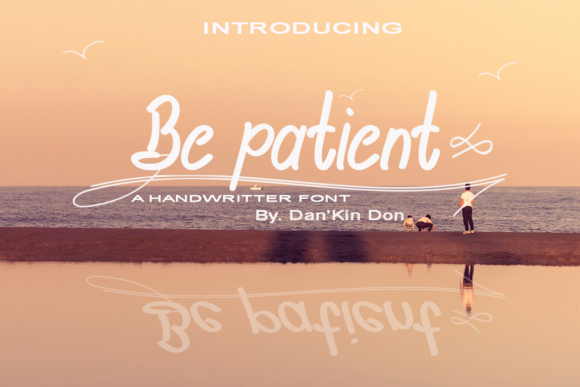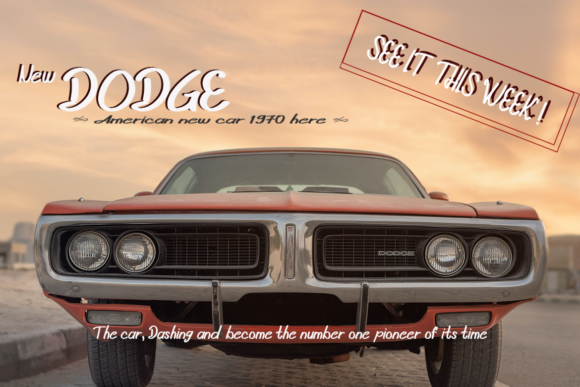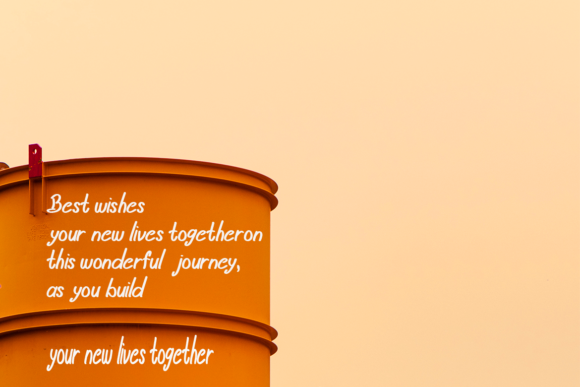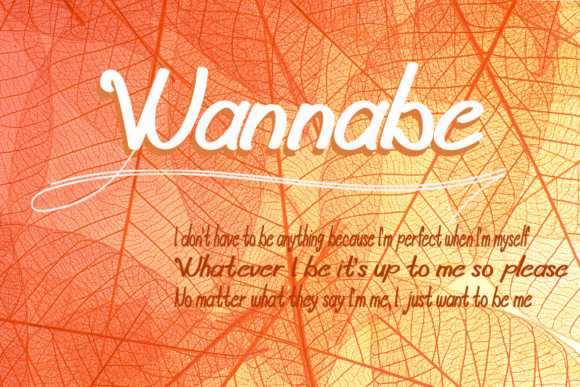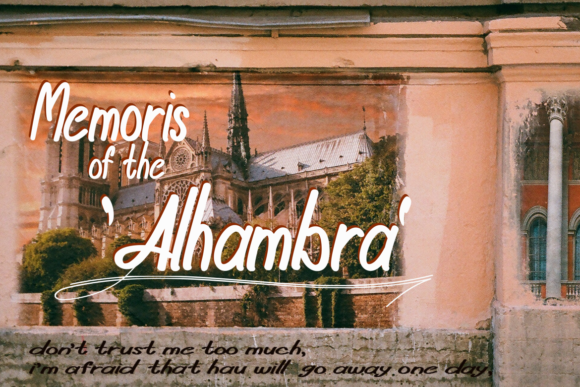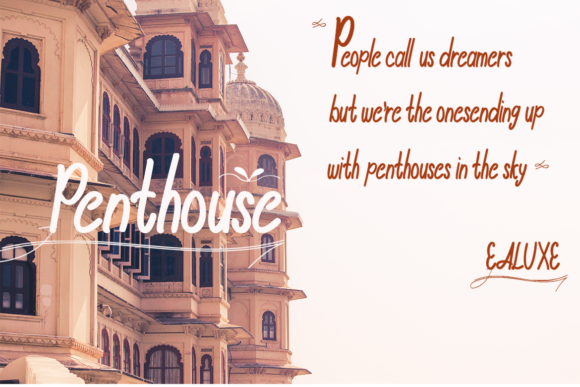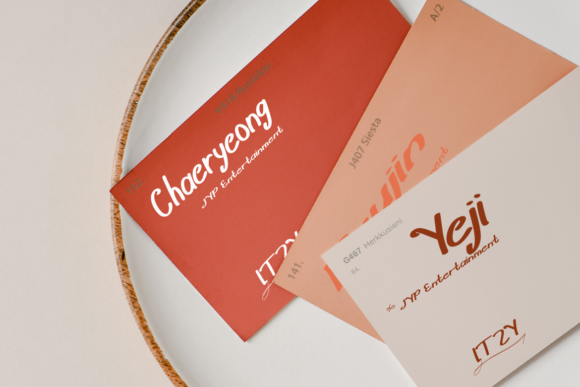
The Perfect Script: Unveiling the Magic of Be Patient Font
Have you ever found yourself staring at a blank canvas, eager to bring your creative vision to life, but struggling to put the first brush stroke down? We’ve all been there – the blank page syndrome, the silent keyboard, the unwritten word. It’s in these moments that we remind ourselves to be patient, to let the ideas simmer, and to trust the process. And it’s exactly this mindset that inspired the creation of the Be Patient Font.
This sweet, whimsical, flowing, and thin script font is more than just a typeface – it’s a design companion that will guide you through the creative journey. With characters that dance along the baseline, Be Patient Font adds a touch of luxury to any design project, elevating it to new heights. Whether you’re a seasoned designer or just starting out, this font is a valuable addition to your toolkit, helping you to craft unique, eye-catching, and memorable designs that leave a lasting impression.
Be Patient Font Key Features
- Font Family: Be Patient is a modern script font with a unique blend of elegance and sophistication.
- Unique Characteristics: The font features a unique blend of swashes, flourishes, and subtle imperfections, giving it a hand-crafted feel.
Be Patient Font Review
Overall, I have mixed feelings about the “Be Patient Font”. While it’s a great choice for certain projects, it falls short in other areas. Let’s dive into the details.
The font’s unique, hand-drawn feel adds a touch of personality to text-based designs.
It’s highly legible, even at smaller font sizes, making it suitable for body text or titles.
The font’s subtle imperfections give it a charming, human touch that sets it apart from more polished fonts.
The font’s limited character set and lack of language support make it less versatile than other options.
Its inconsistent spacing and kerning can make it difficult to use in certain contexts, such as headlines or captions.
The font’s small x-height can make it challenging to read for users with visual impairments.
While the “Be Patient Font” has its charm, its limitations hold it back from being a go-to choice for most designers. However, for specific projects that require a unique, hand-drawn feel, it’s definitely worth considering.
For optimal results, use the Be Patient font in headings and titles to create a visually appealing contrast with body text.
Experiment with different font sizes and styles to create a unique look and feel.
Use the Be Patient font in conjunction with other fonts to create a harmonious and balanced typography.
Alternatives to Be Patient Font for Designers
Pacifico Font is a beautiful, elegant script font perfect for creative projects, wedding invitations, and branding materials. It’s ideal for designers who want to add a touch of sophistication and luxury to their designs. Unlike Be Patient Font, Pacifico has a more refined and delicate feel, making it suitable for high-end projects.
Great Vibes Font is a modern, cursive script font ideal for designers who want to create a sense of movement and energy in their designs. It’s perfect for projects that require a fun, playful, and youthful vibe. Compared to Be Patient Font, Great Vibes has a more dynamic and energetic feel, making it suitable for projects that require a bold statement.
Carolyna Pro Font is a elegant, modern script font perfect for designers who want to create a sense of sophistication and elegance in their designs. It’s ideal for projects that require a touch of luxury and refinement. Unlike Be Patient Font, Carolyna Pro has a more modern and sleek feel, making it suitable for high-end projects and corporate branding.
Q: Are there any specific font size and spacing recommendations for the Be Patient Font?
For optimal readability, we recommend using font sizes between 24px and 48px for digital displays and signage. Additionally, adjust the font spacing (kerning and tracking) according to your design needs to ensure clear and legible text. You can also use the font’s built-in ligatures and stylistic sets to enhance the overall appearance of your design.